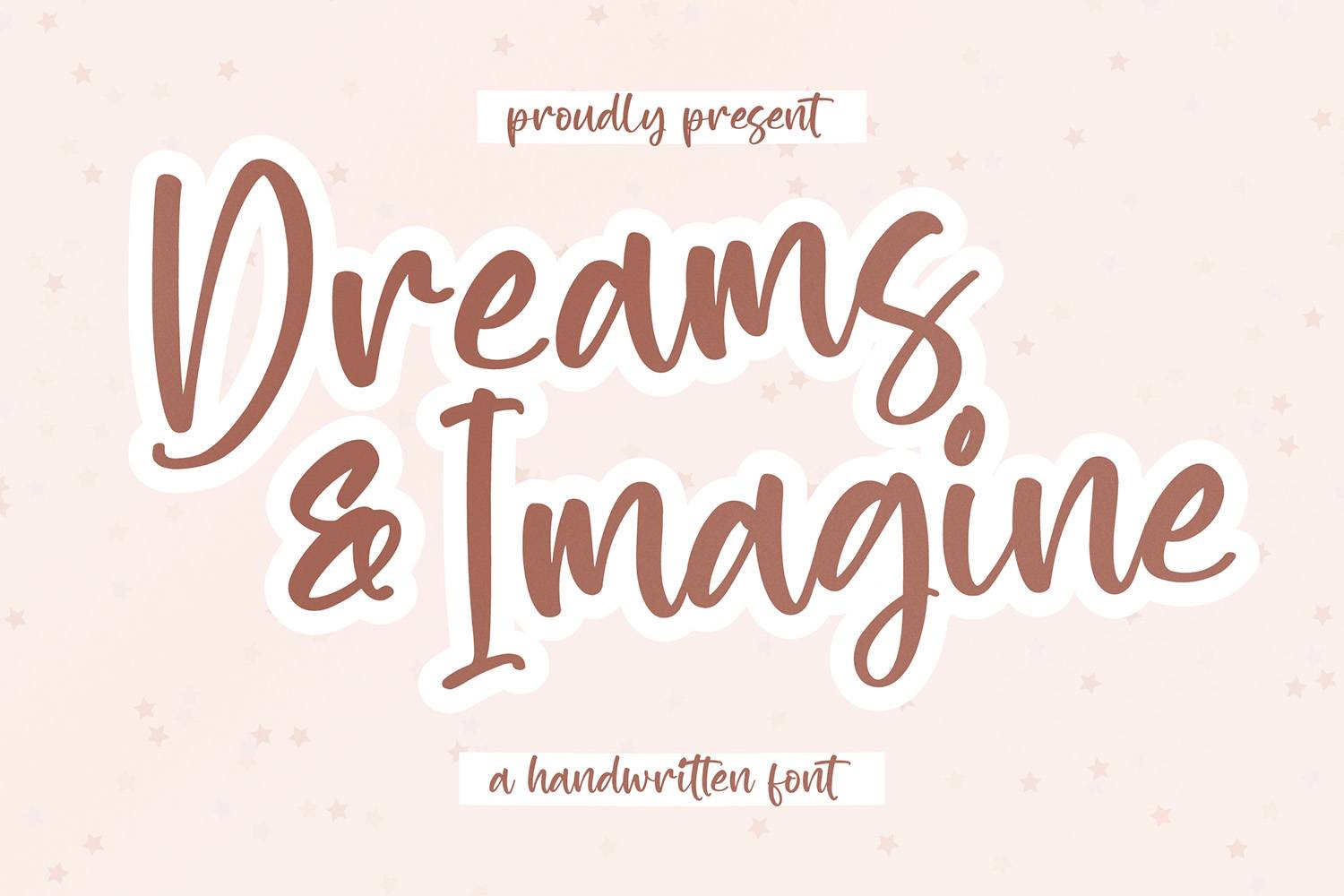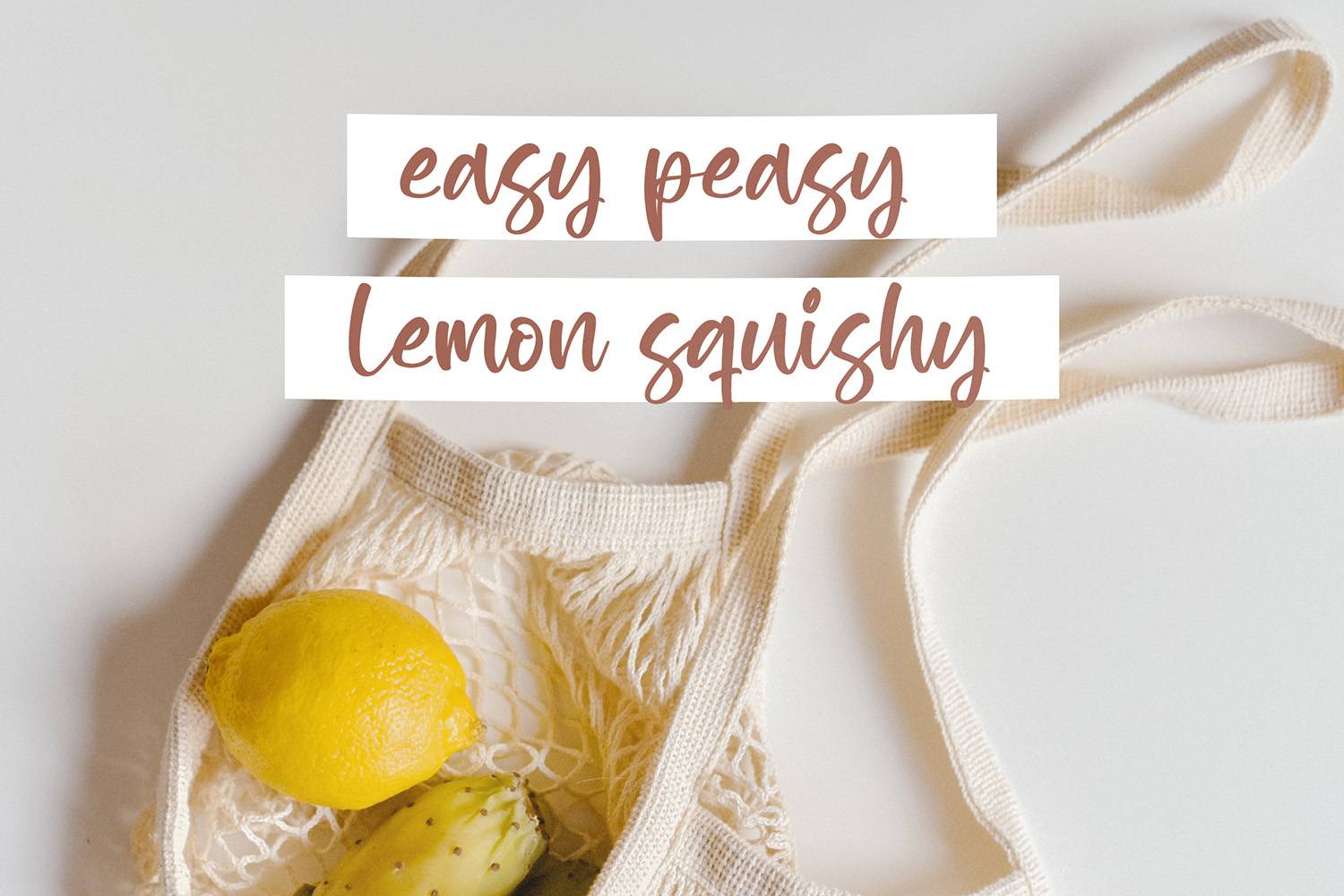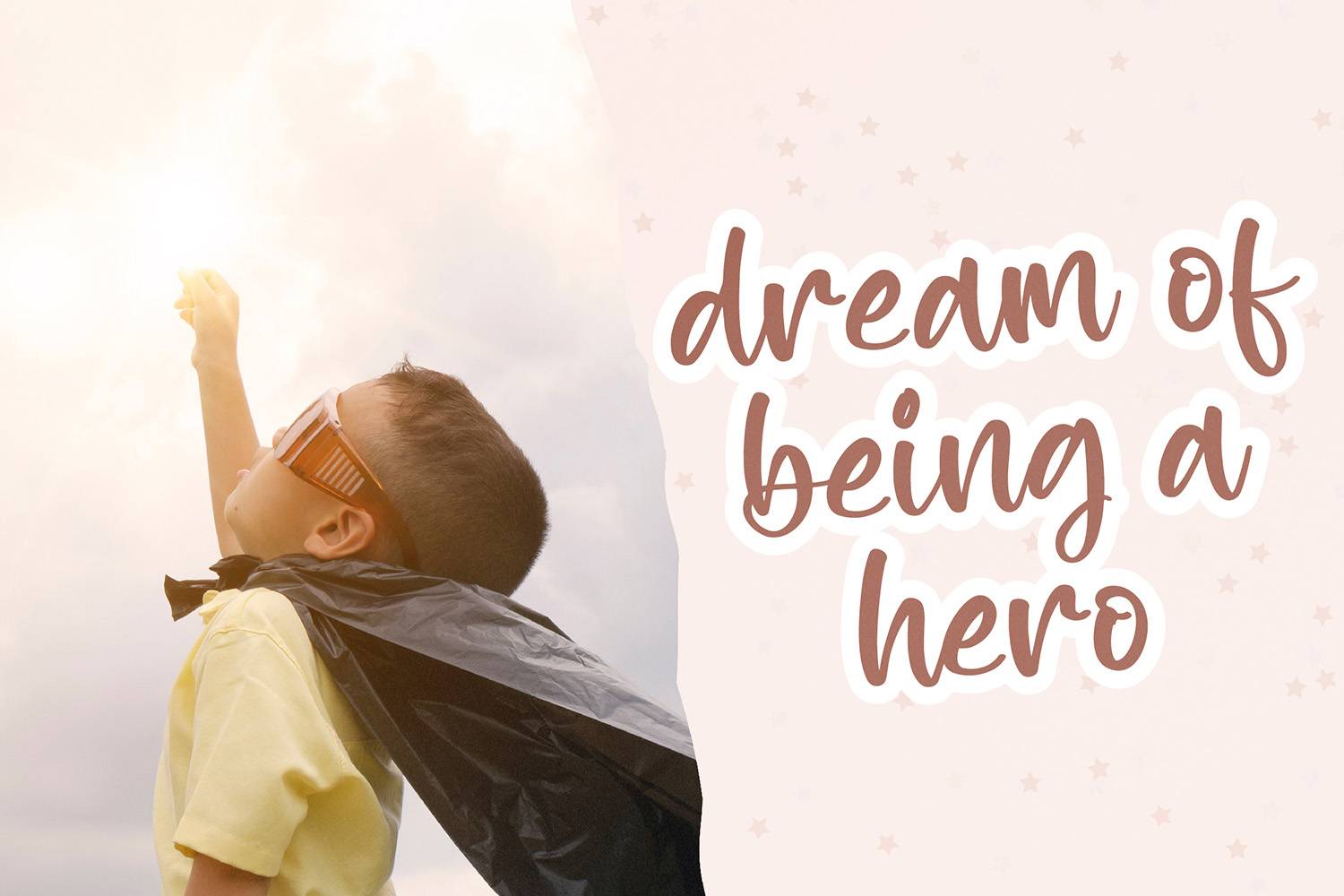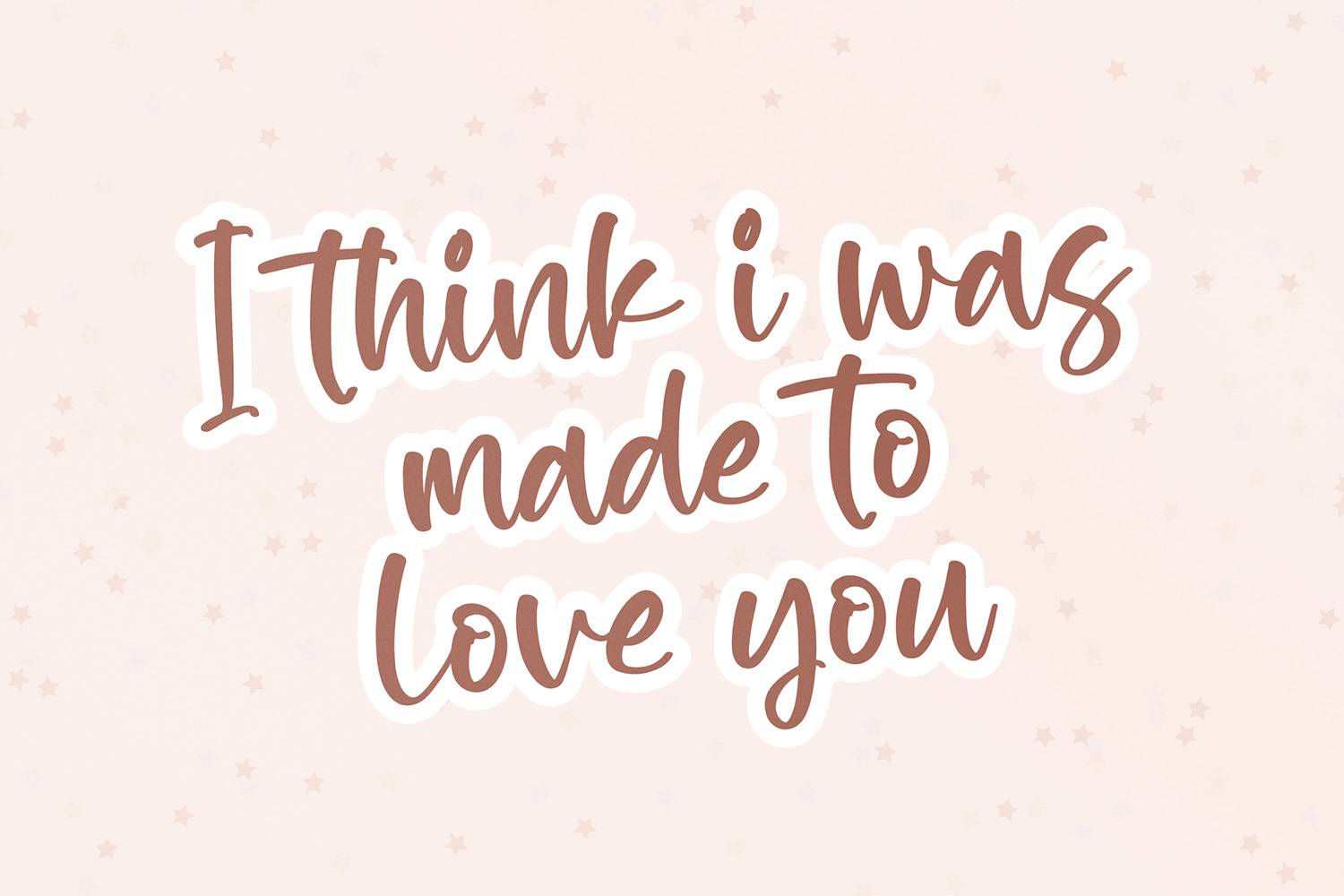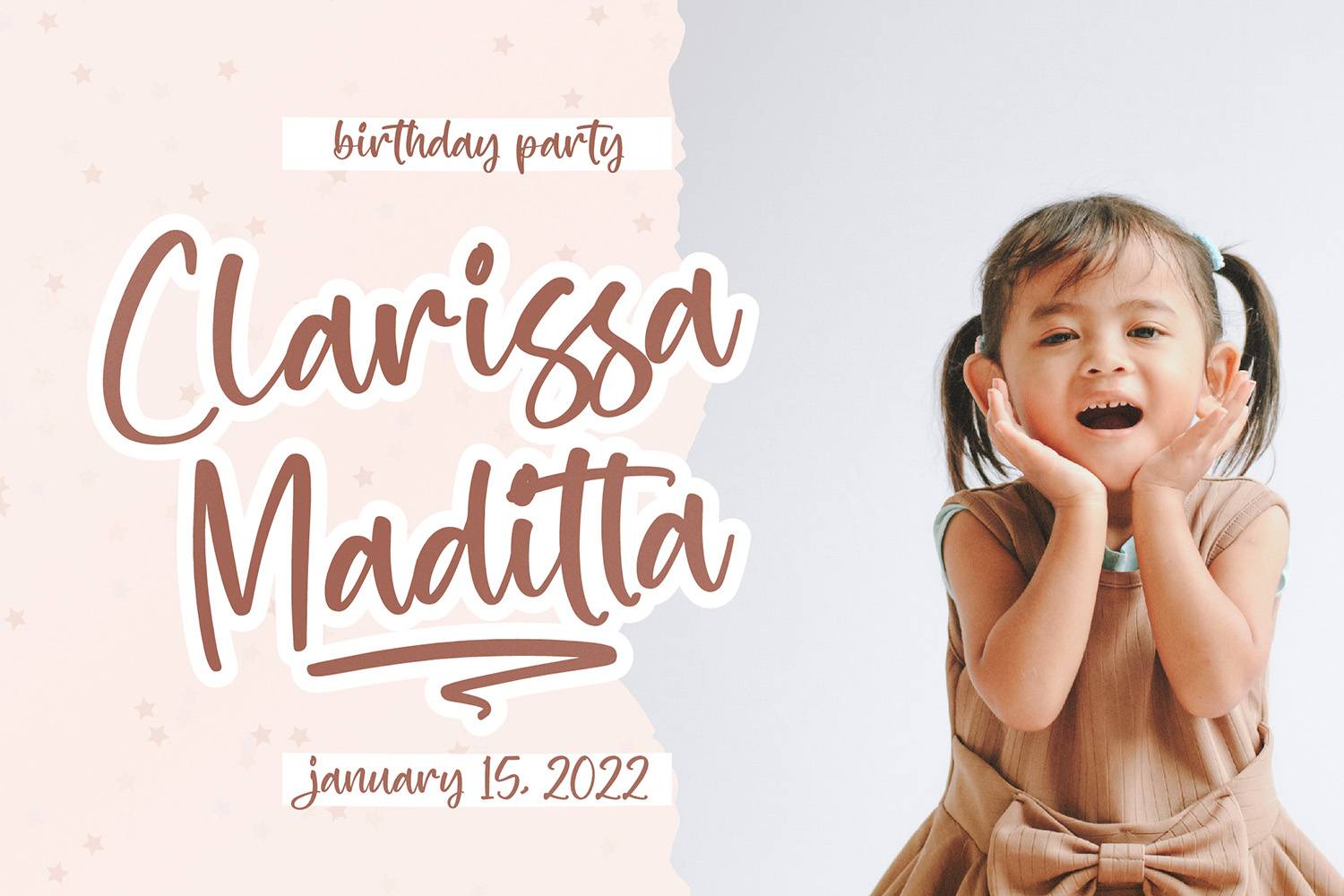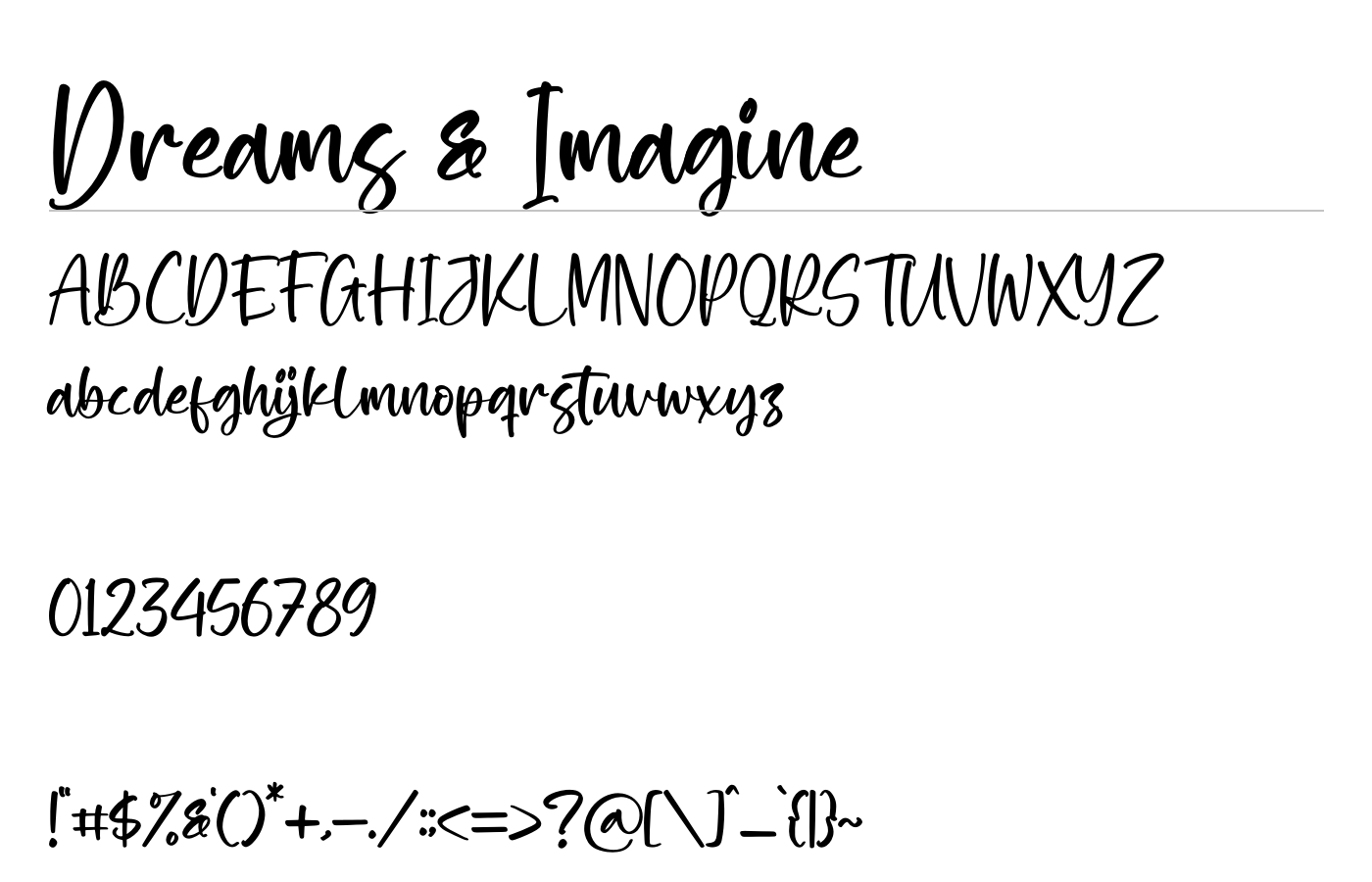
Dreams and Imagine is a lively handwritten script font with a casual, friendly feel, characterized by its smooth, flowing strokes and slightly playful letterforms. It offers a balanced mix of legibility and personality, making it ideal for creative branding, invitations, and lifestyle projects that want to convey warmth and approachability. Its natural, human touch works beautifully for both headlines and decorative uses where a personal, informal vibe is desired.
Dreams and Imagine Font
About Dreams and Imagine Font